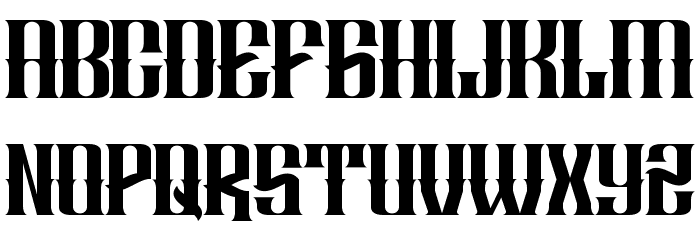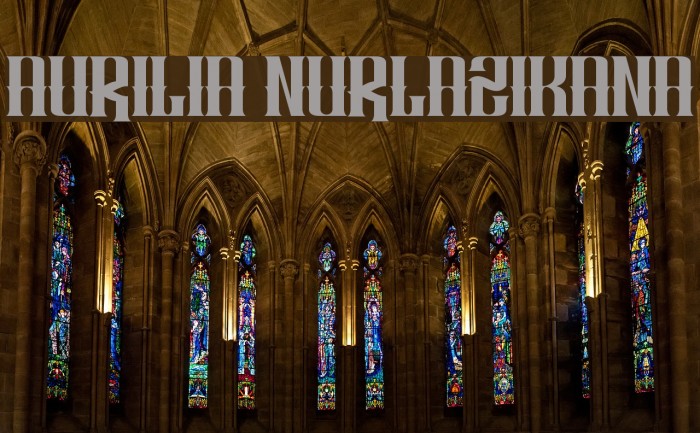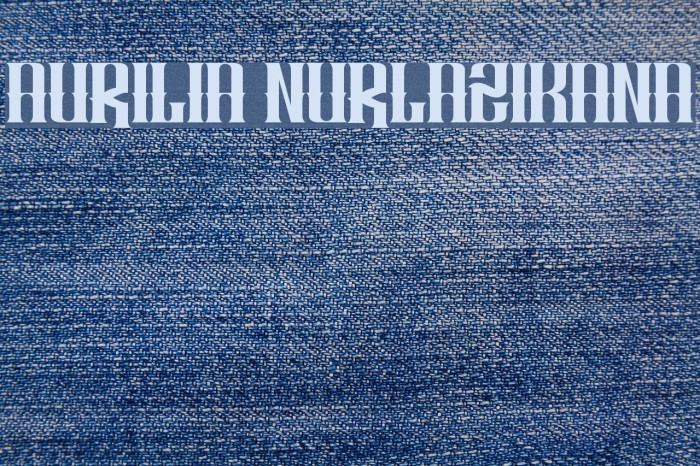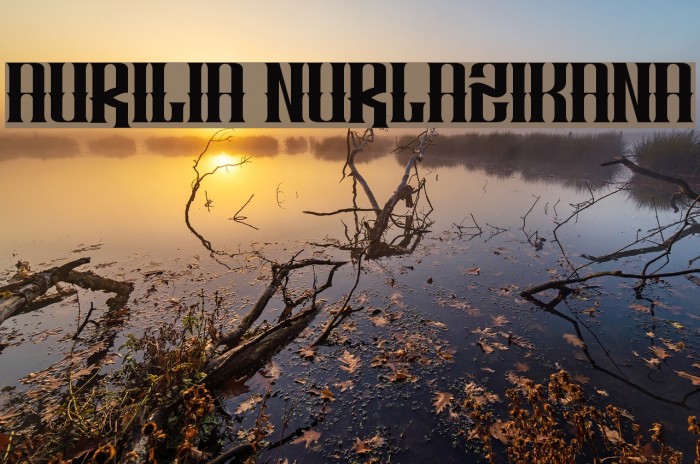
AURILIA NURLAZIKANA Font
This font features a bold and striking design, characterized by its strong vertical lines and sharp edges, reminiscent of traditional Blackletter styles. The uppercase letters are particularly prominent, with intricate detailing that adds a sense of depth and complexity. The font's overall appearance is both authoritative and decorative, making it suitable for projects that require a dramatic and impactful visual presence. Its unique style is ideal for creating eye-catching headlines, logos, and branding materials that demand attention.
A bold, Blackletter-inspired font with sharp edges and intricate detailing.
- Proposed Projects: Ideal for branding, logos, posters, and any design requiring a dramatic and authoritative presence.